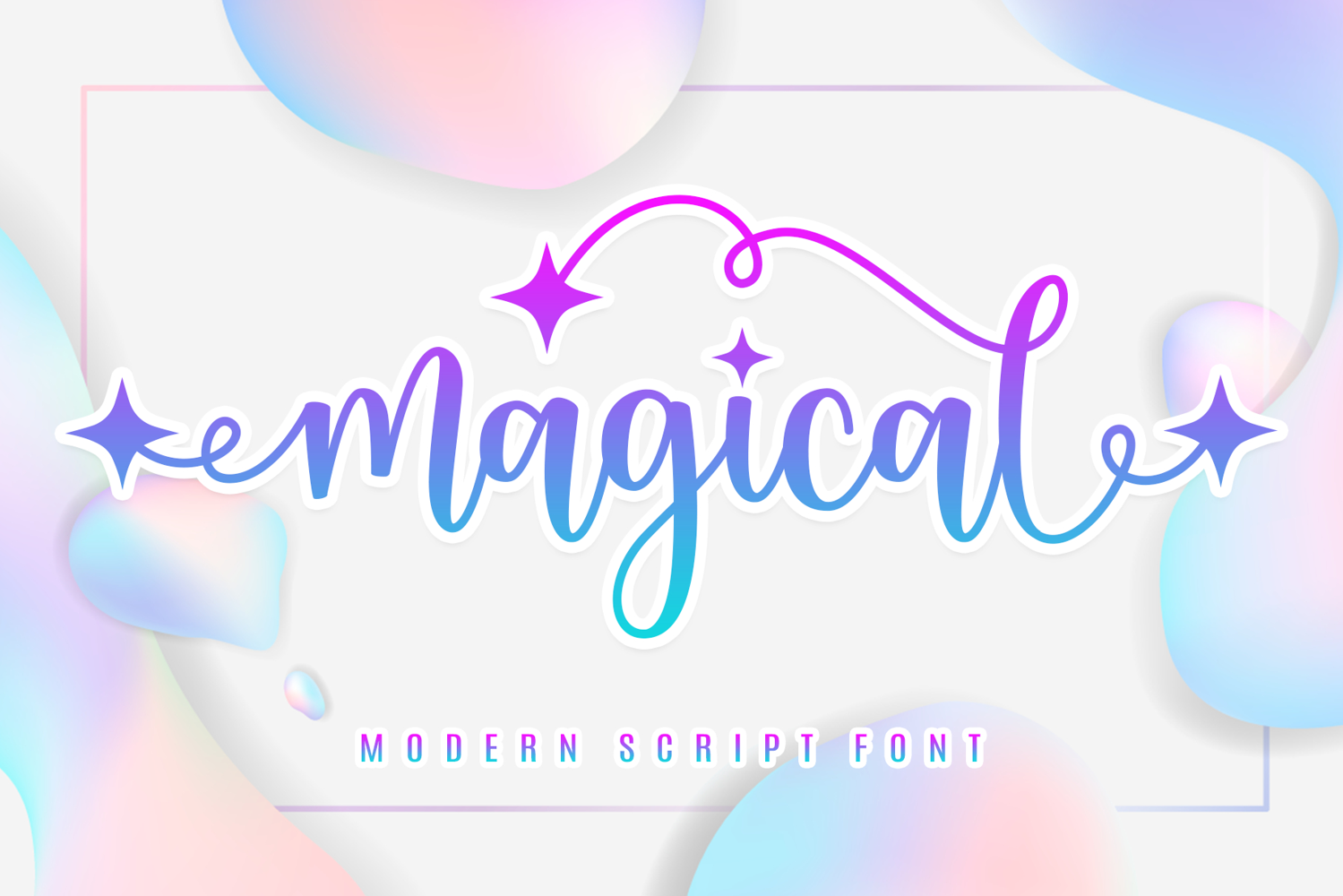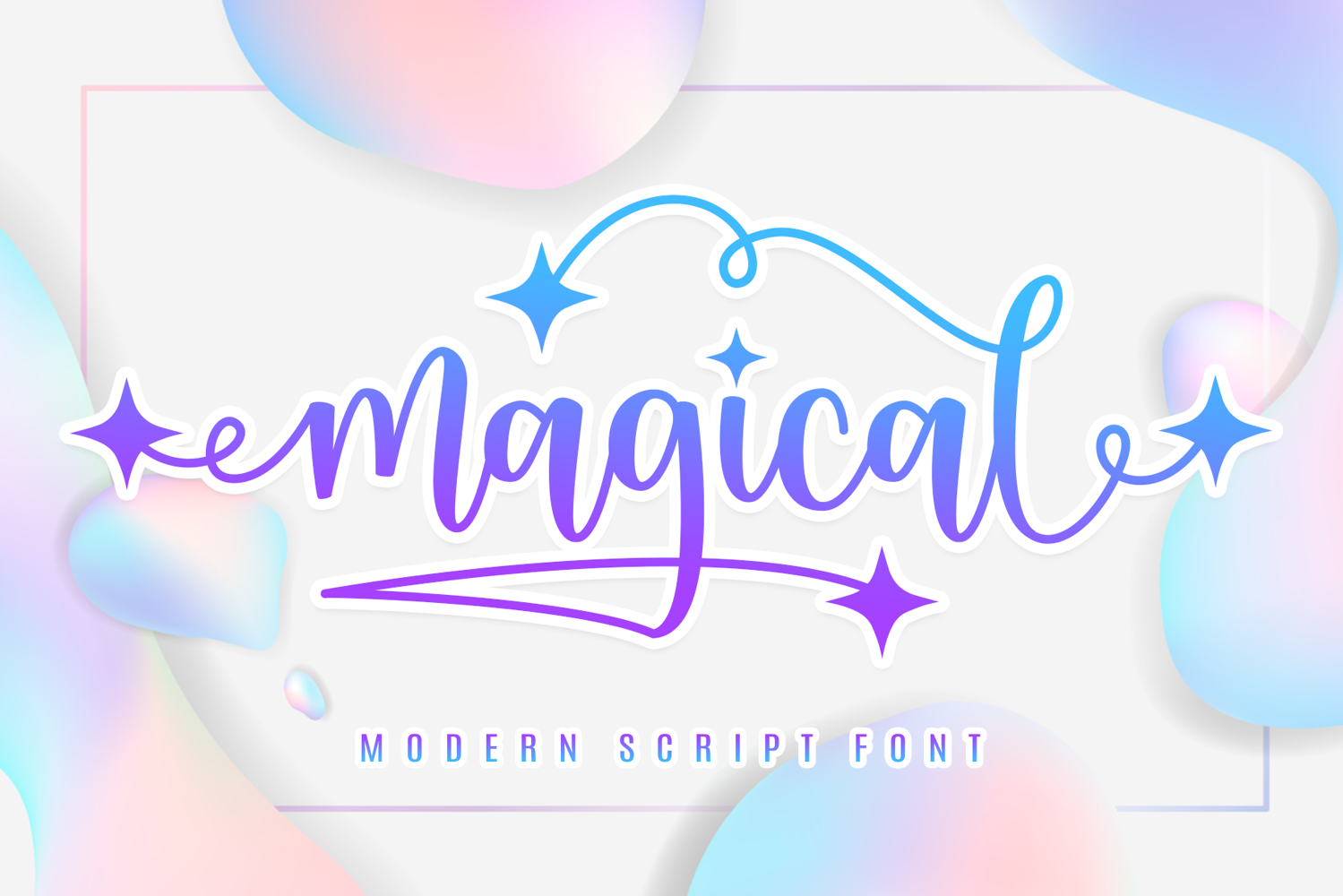
Magical
Magical typeface is an exquisite script font that flows with vibrant hues of creativity. Each stroke unlocks a world of artistic magic, evoking memories that transcend the ordinary. Express your unique flair with the miraculous power of Magical, the font that transforms your visual narratives into captivating works of art.